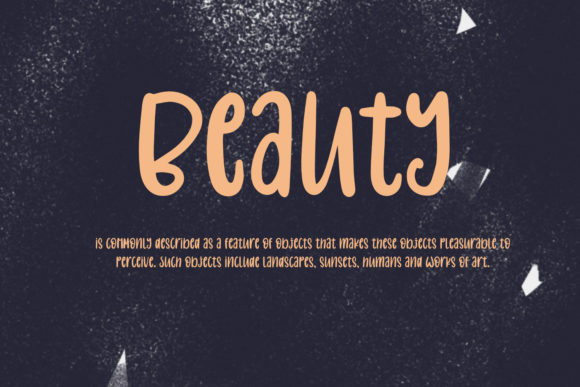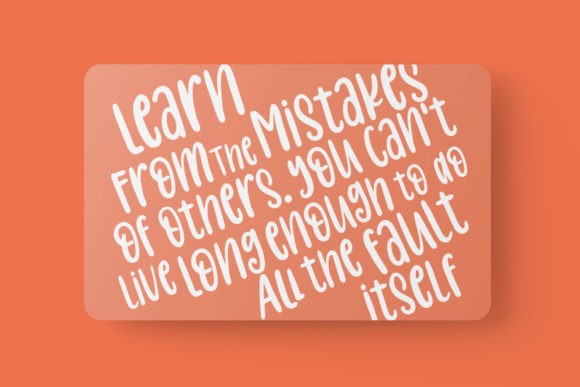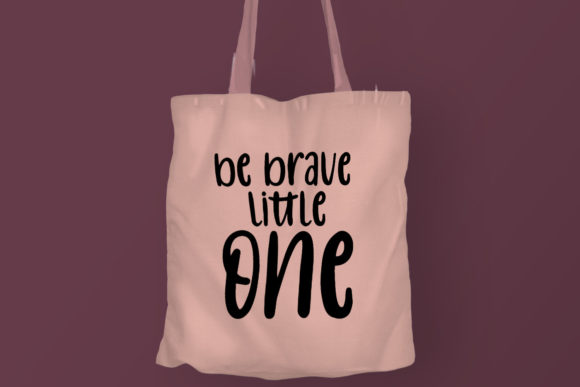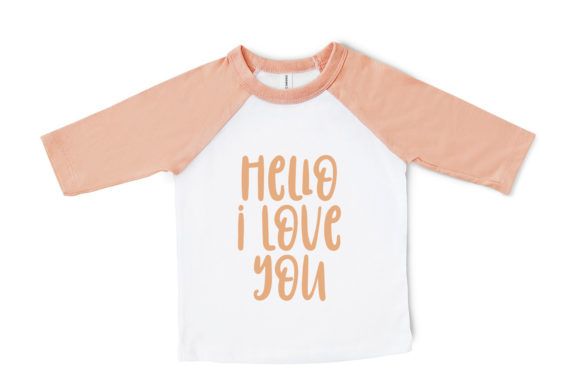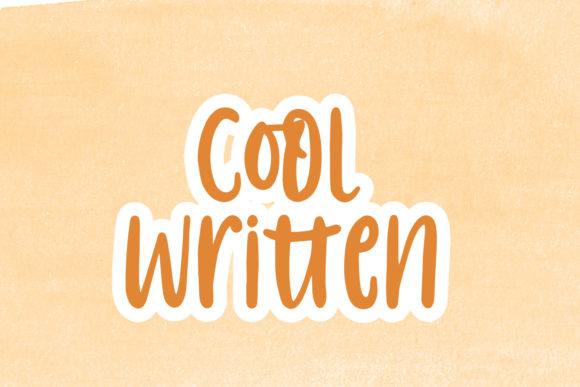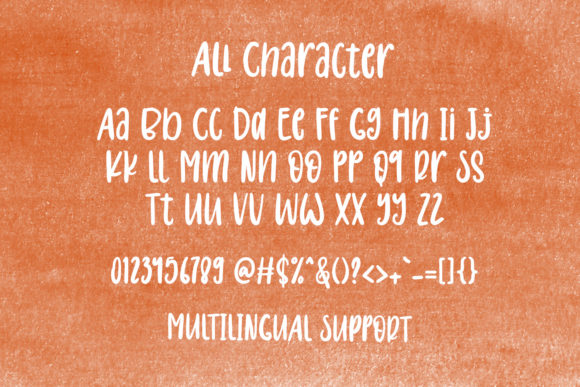
Dream Good Font: The Perfect Handwritten Font for Designers and Crafters
Are you a designer, crafter, or DIY enthusiast looking for a font that can add a personal touch to your projects? Look no further than the Dream Good Font! This simple, adaptable, and informal handwritten font is perfect for a wide range of creative endeavors, from digital designing to crafting, presentations, and greeting card making.
What Makes Dream Good Font Special?
Dream Good Font is a PUA (Private Use Area) encoded font, which means that it offers a vast range of glyphs and swashes that can be easily accessed. This feature makes it incredibly versatile and user-friendly, allowing you to experiment with different styles and designs without any hassle.
One of the standout features of Dream Good Font is its handwritten style, which adds a warm and personal touch to any project. The font is designed to look informal and approachable, making it perfect for projects that require a friendly and inviting tone.
Uses for Dream Good Font
So, what can you use Dream Good Font for? The possibilities are endless! Here are just a few ideas to get you started:
- Crafting: Use Dream Good Font to add a personal touch to your crafting projects, such as scrapbooking, journaling, and card making.
- Digital Designing: Add a handwritten touch to your digital designs, including social media graphics, blog posts, and website headers.
- Presentations: Use Dream Good Font to add a friendly and approachable tone to your presentations, making them more engaging and relatable.
- Greeting Cards: Create beautiful and personalized greeting cards for special occasions, such as birthdays, weddings, and holidays.
Benefits of Using Dream Good Font
So, why should you choose Dream Good Font for your projects? Here are just a few benefits:
- Easy to Use: Dream Good Font is incredibly easy to use, even for those who are new to font design.
- Versatile: The font is highly versatile and can be used for a wide range of projects, from digital designing to crafting.
- PUA Encoded: The font is PUA encoded, making it easy to access all of the glyphs and swashes.
- Handwritten Style: The font features a beautiful handwritten style that adds a warm and personal touch to any project.
Tips for Using Dream Good Font
Here are a few tips for getting the most out of Dream Good Font:
- Experiment with Different Sizes: Try out different font sizes to see how Dream Good Font looks in different contexts.
- Mix and Match: Combine Dream Good Font with other fonts to create a unique and eye-catching design.
- Use Swashes and Glyphs: Take advantage of the font’s PUA encoding to add swashes and glyphs to your designs.
In conclusion, Dream Good Font is a versatile and user-friendly font that is perfect for designers, crafters, and DIY enthusiasts. With its handwritten style, PUA encoding, and adaptability, it’s the perfect choice for a wide range of creative projects. Whether you’re looking to add a personal touch to your crafting projects or create engaging digital designs, Dream Good Font is the perfect choice.